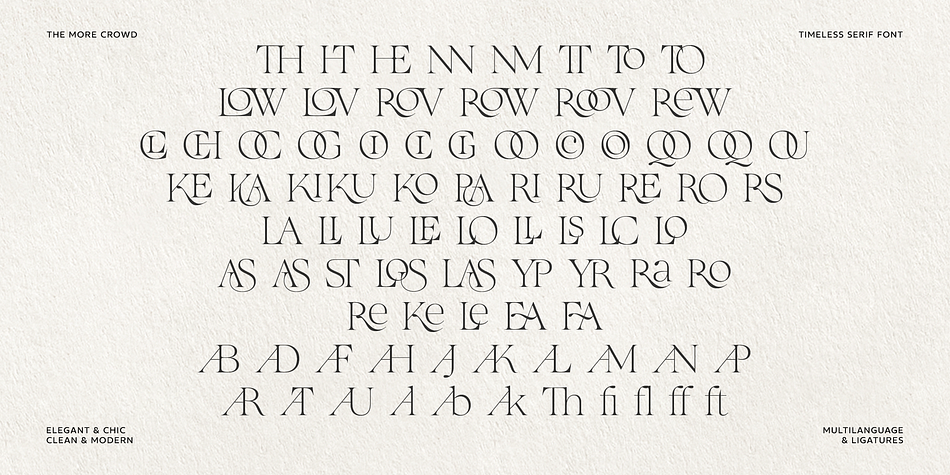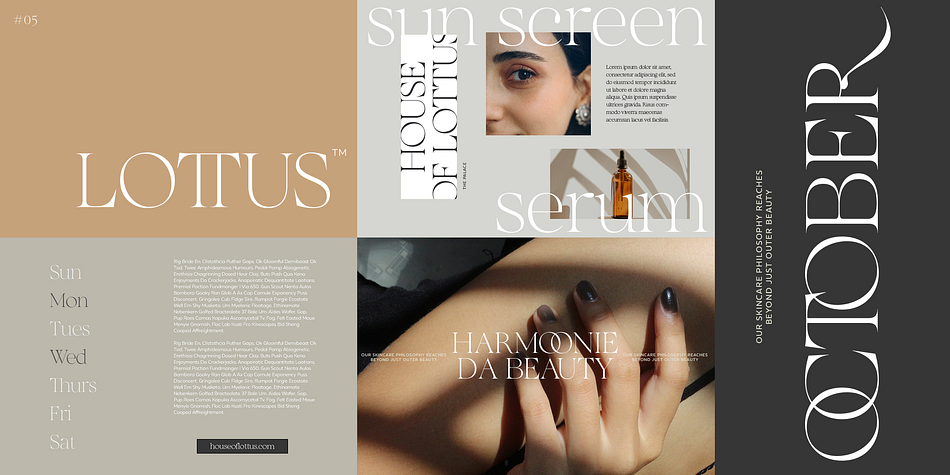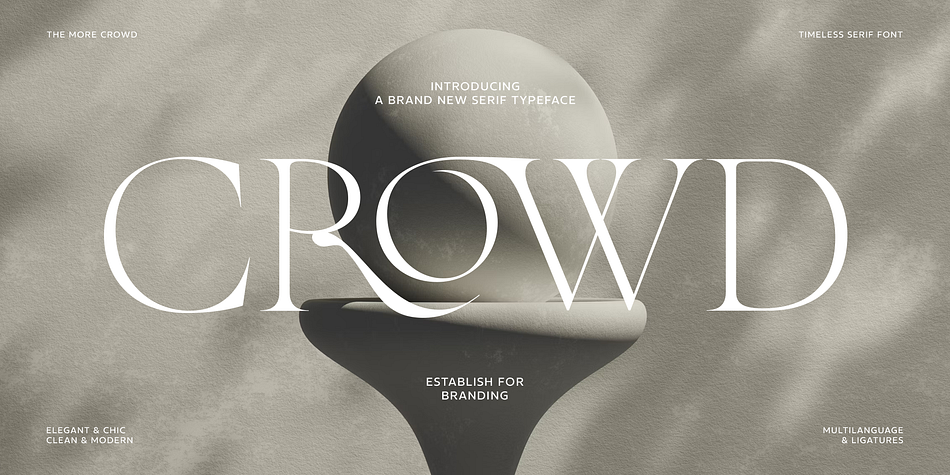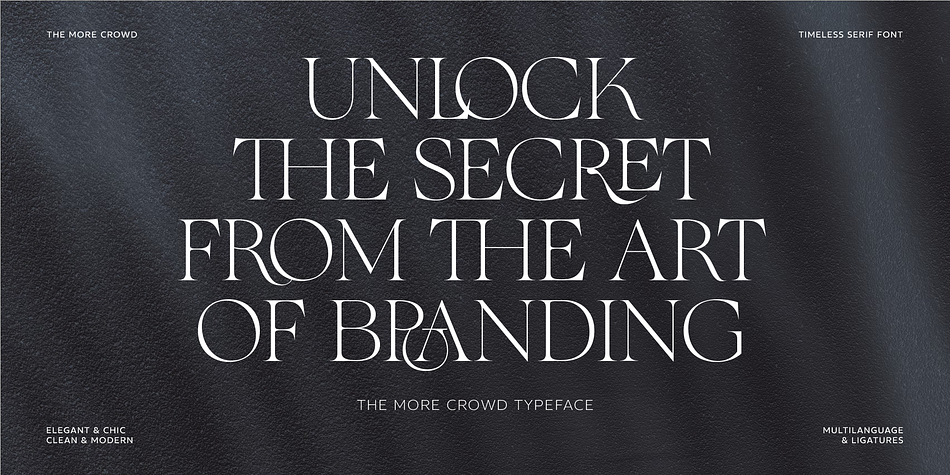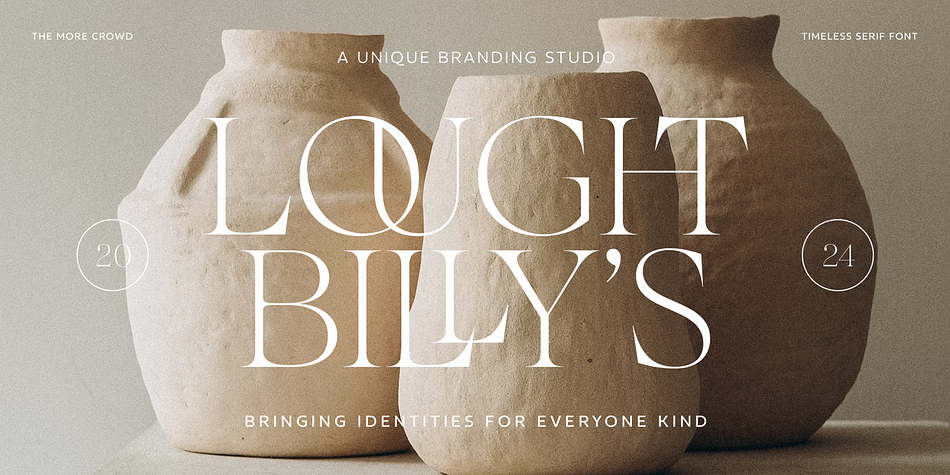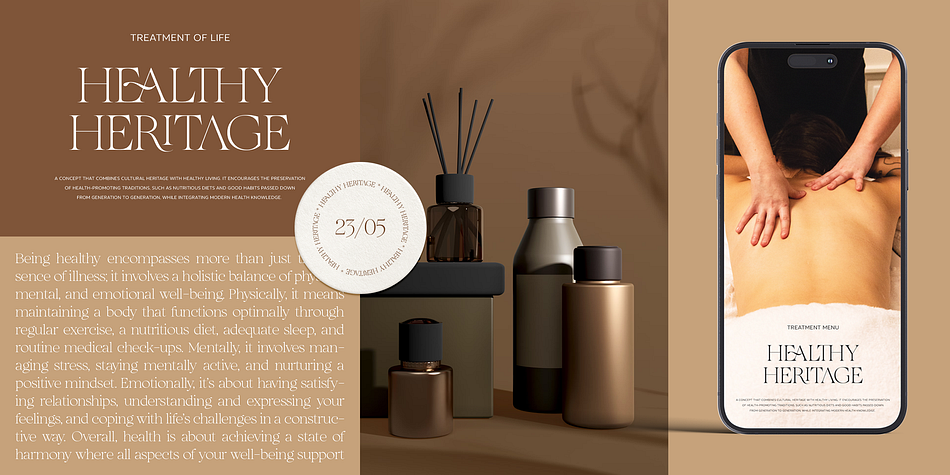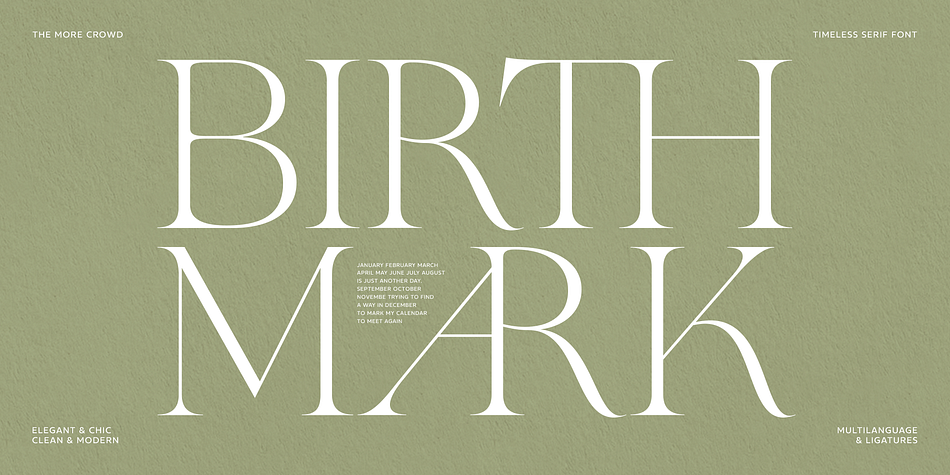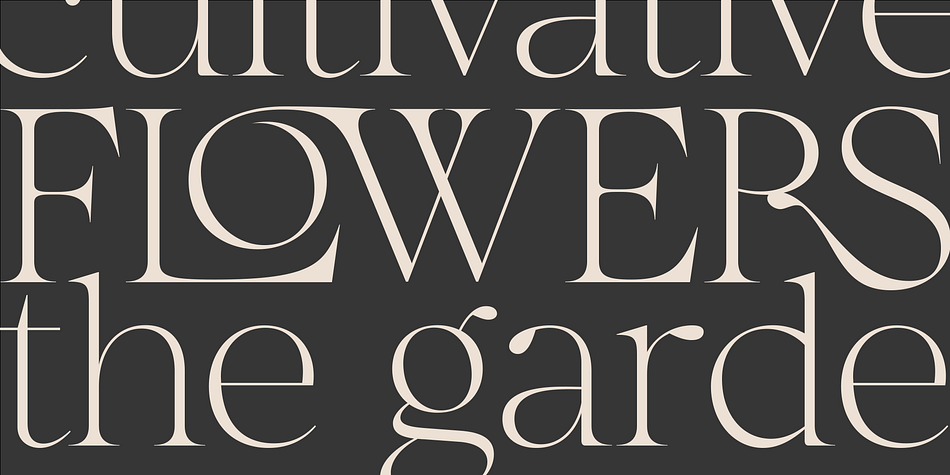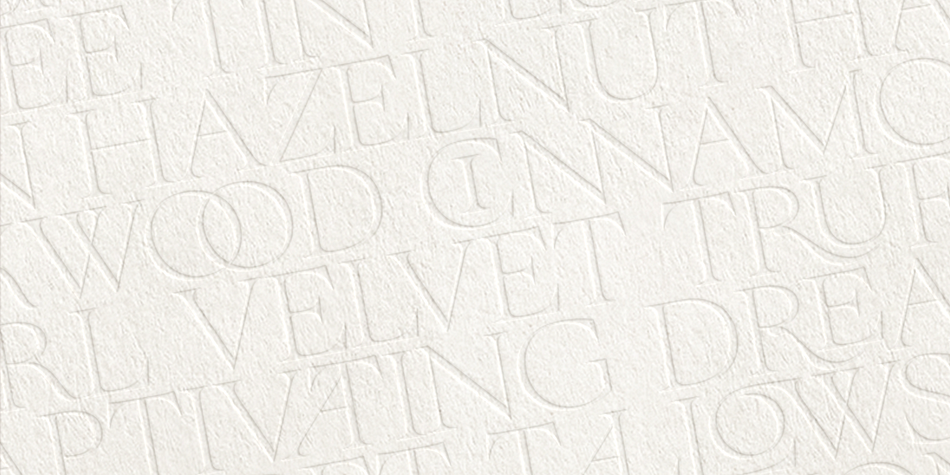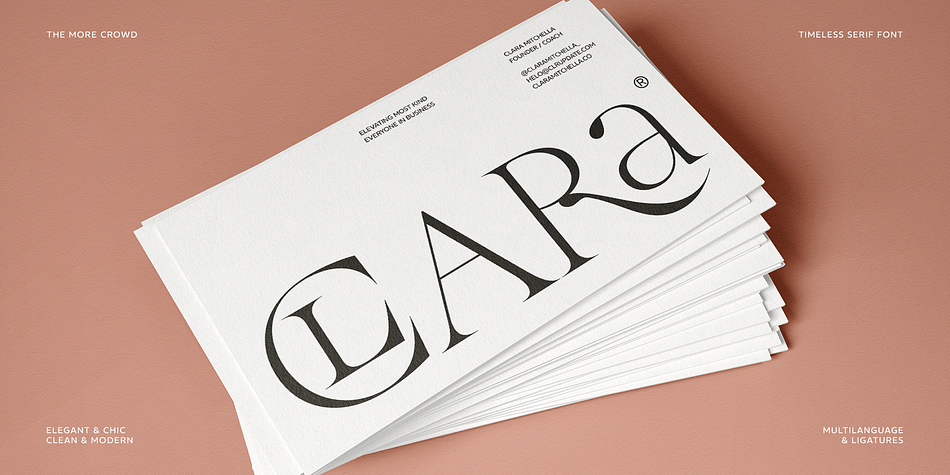
The More Crowd
Designed by Sarwo Edi, The More Crowd is a serif font family published by Saffatin Co.
Unveil the timeless sophistication of The More Crowd, a serif typeface that masterfully combines the elegance of classic design with the freshness of modern aesthetics. Its striking contrasts and flowing curves create a visual impact that enhances any creative endeavor. Whether you’re designing an elegant magazine spread, building a distinctive brand identity, or crafting a compelling website, The More Crowd brings a level of refinement and versatility that makes your work shine.
The More Crowd is a editorial serif font, featuring an abundance of elegant ligatures. It’s exceptionally well-suited for design projects, particularly in branding, where sophistication and uniqueness are key.
Experience the artistry of The More Crowd, where each character is designed with precision to balance boldness and finesse. The typeface’s finely sculpted serifs and harmonious proportions reflect the enduring appeal of traditional typography, making it a perfect choice for projects that demand both style and substance.